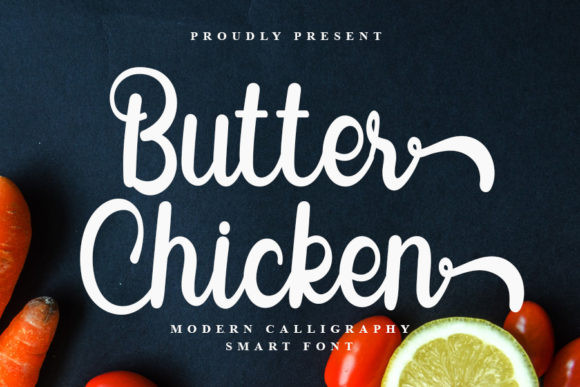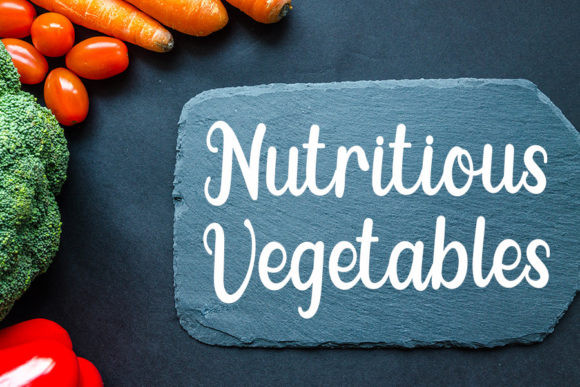
Butter Chicken Font
Butter Chicken is a beautiful and well rounded calligraphy font. It has a modern look that makes it perfect for branding, invitations, stationery, wedding designs, social media posts, and much more! This font is PUA encoded which means you can access all of the glyphs and swashes with ease!